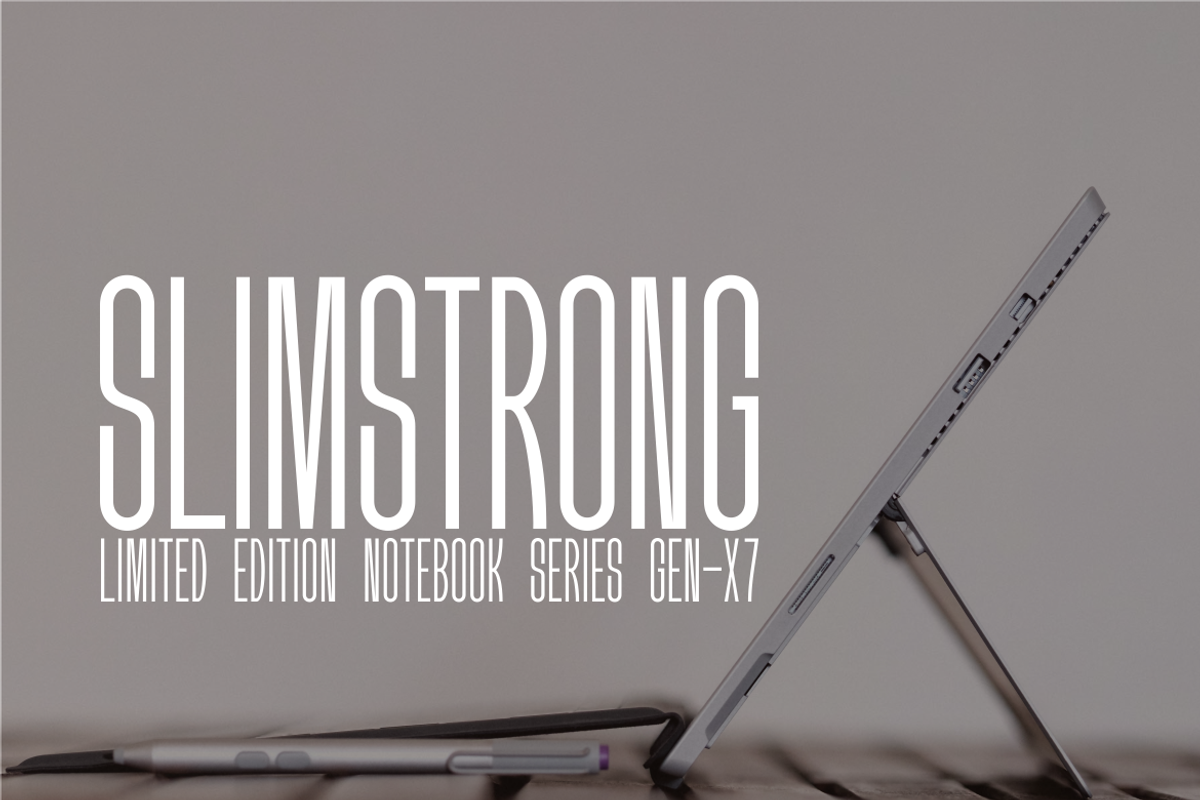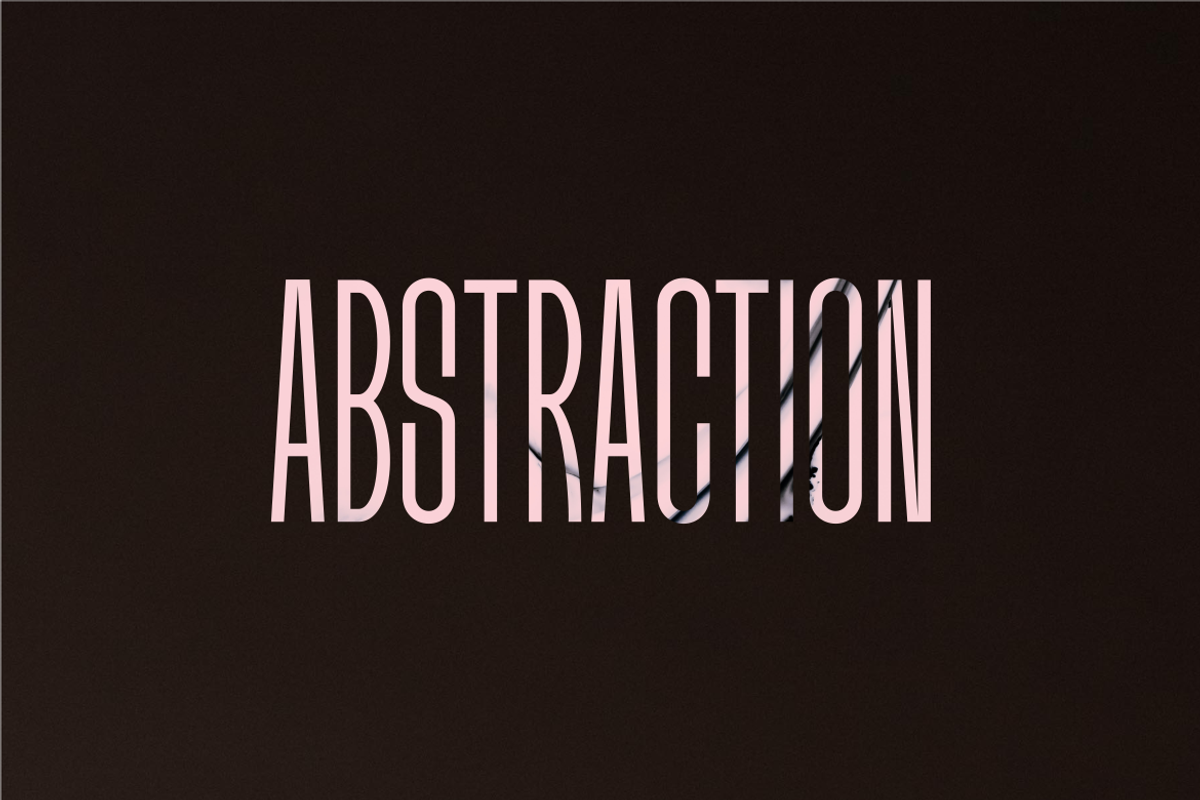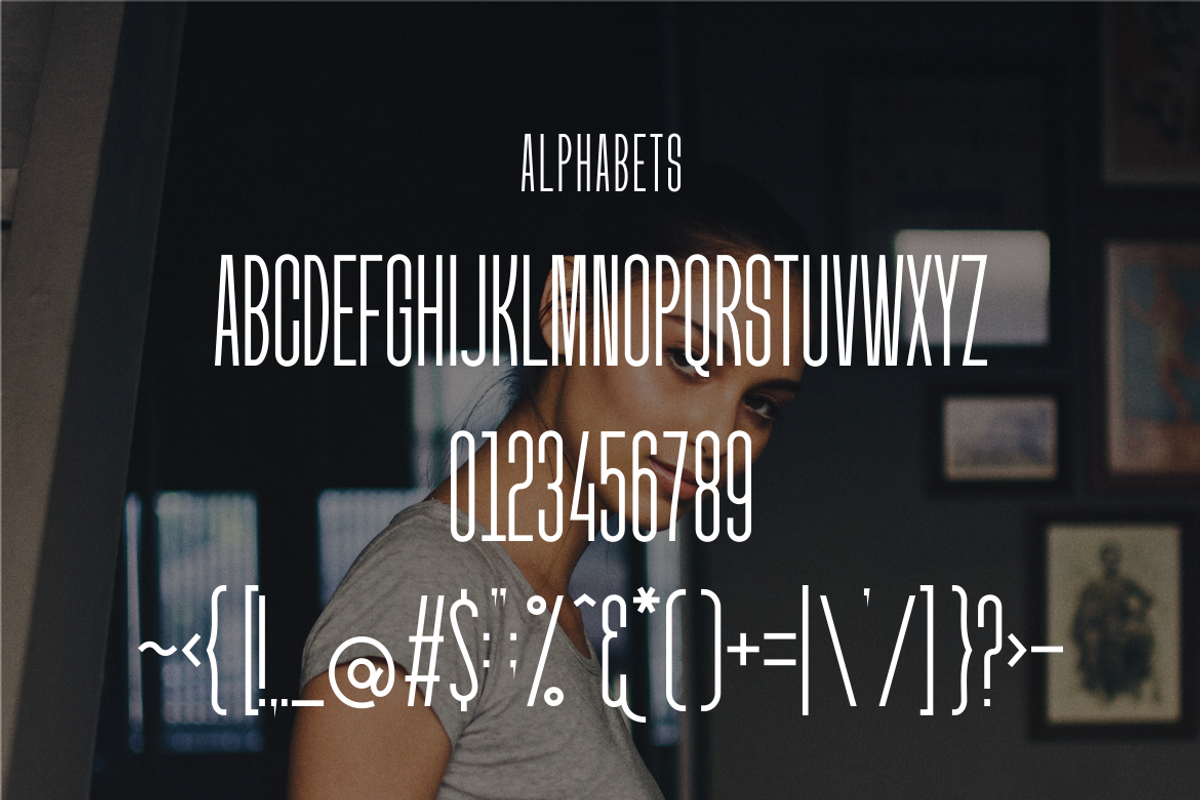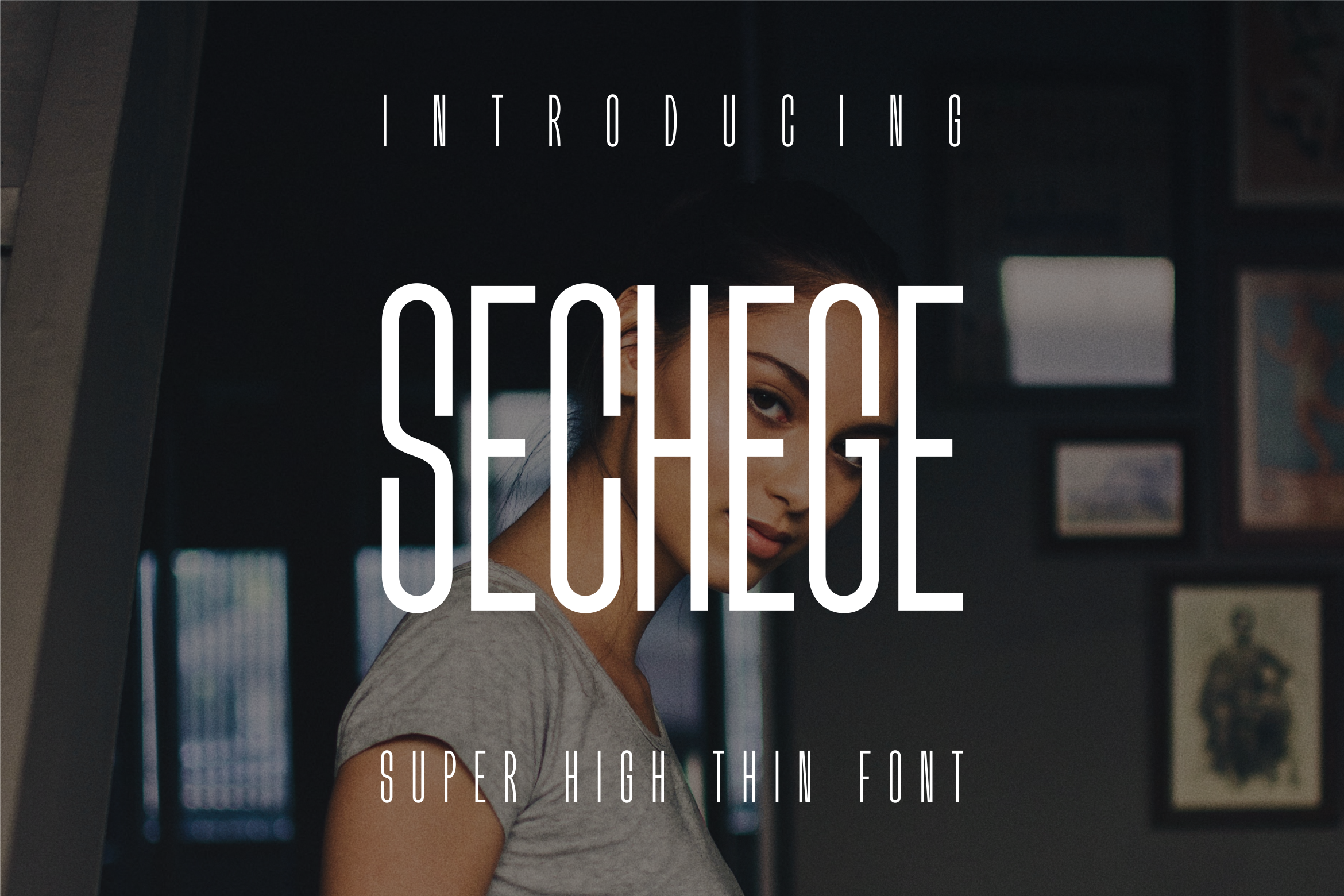
Sechege Lite Slim Font
Is a slim font suitable for the definition of strength of any thing that is considered slim. Suitable for products such as notebooks, chips and the like. Also products for healthy skinny programs or formula milk for diets. Slim thing is the main topic for this font.